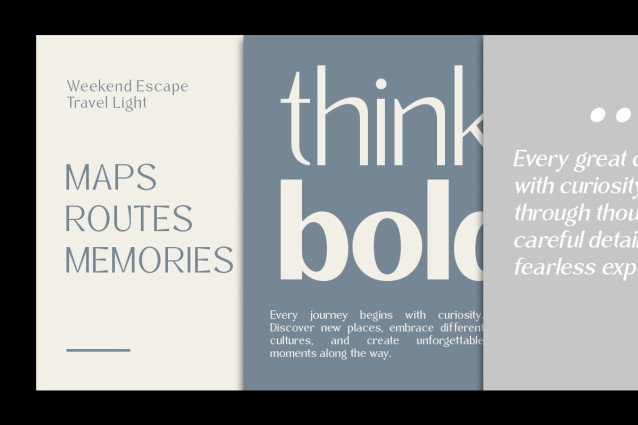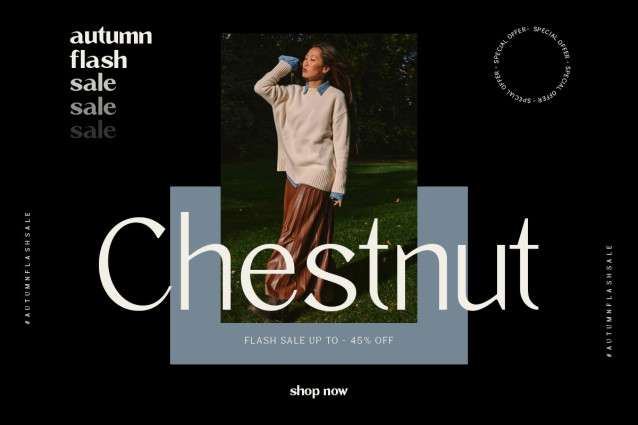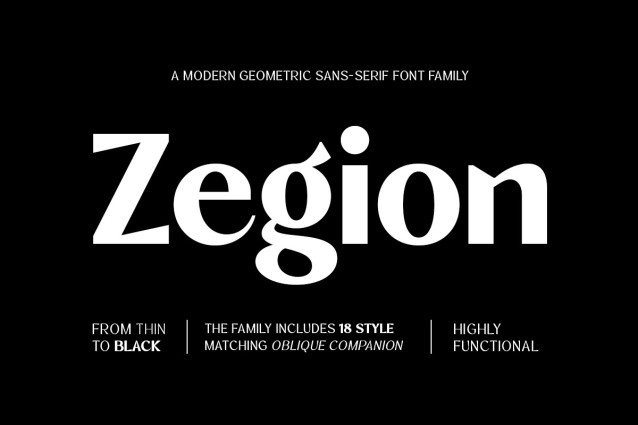
Zegion – Modern Geometric Sans Serif Font
Zegion Font – a modern geometric sans serif typeface crafted with clean proportions, balanced letterforms, and a contemporary aesthetic. Designed as a versatile font family, Zegion is ideal for branding, editorial design, logos, packaging, websites, and corporate identities.
With 18 styles ranging from Thin to Black, including matching Oblique versions, it offers flexibility for creating clear visual hierarchy across both print and digital projects. Complete multilingual support makes Zegion a reliable choice for a wide range of creative applications.